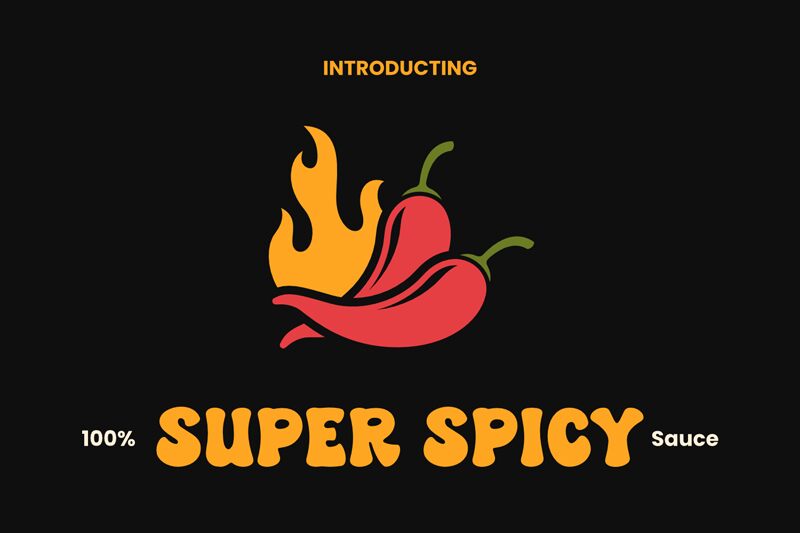
Super Spicy
Super Spicy, crafted by the talented fsuarez913, is a display font that effortlessly captures the essence of the groovy era with its extra-bold weight and curvaceous form. This typeface exudes an aesthetic charm that is both playful and assertive, making it an excellent choice for projects looking to stand out with a touch of retro flair.
The voluptuous curves and solid presence of Super Spicy add a layer of visual interest that can transform any creative endeavor into a captivating piece. Its suitability spans from bold marketing materials and eye-catching headlines to dynamic logos and spirited apparel designs.
Embrace the distinctive style of Super Spicy to infuse your works with an energy that's as vibrant and daring as its name suggests.
Super Spicy: This font isn't just bold, it's a full-on flavor explosion! Inspired by the vibrant energy of retro design, Super Spicy takes classic letterforms and throws in a dash of quirky charm.